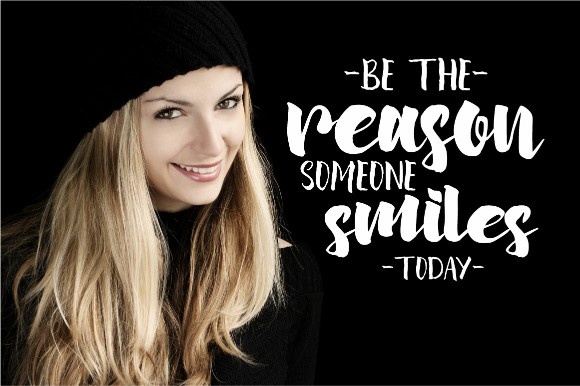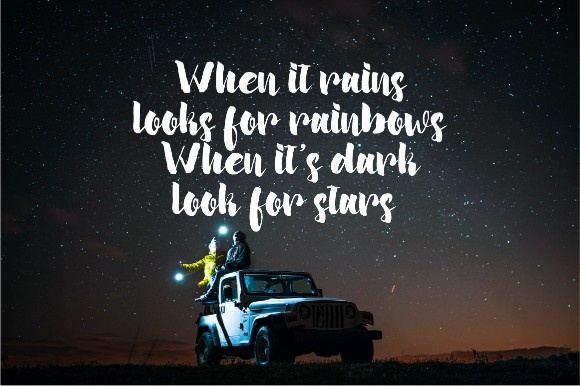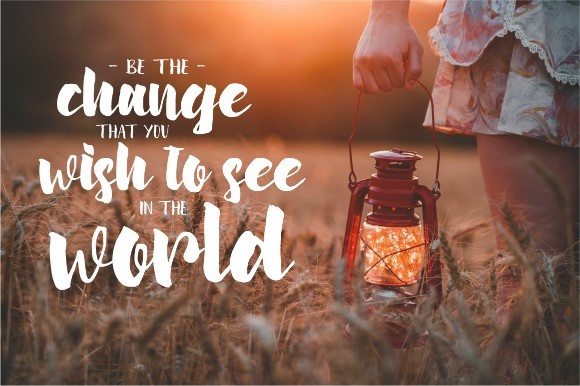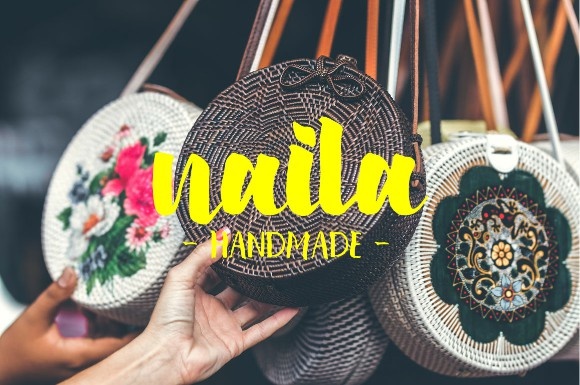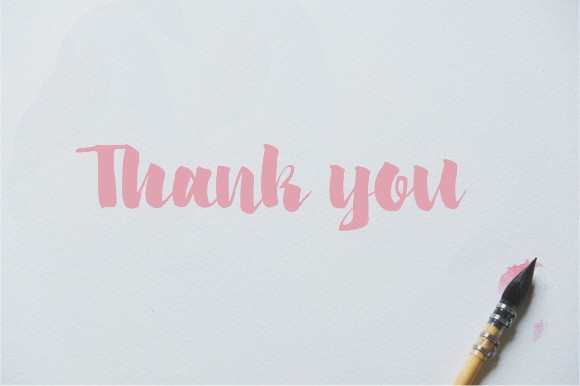
The Art of Handmade Typography
Have you ever found yourself scribbling away in a notebook, experimenting with different brush strokes and textures in search of the perfect handwritten look? For designers, capturing that unique, handmade feel can be a challenge, but it’s also what makes a design truly special. Whether you’re working on a branding project or creating a beautiful piece of art, the right font can make all the difference.
Enter the Arinda & Karina Duo Font, a stunning pair of fonts that perfectly capture the essence of handmade brush style. This beautiful duo is designed to evoke a sense of warmth and personality, making it the perfect addition to any design project. With its unique textures and subtle imperfections, the Arinda & Karina Duo Font is a valuable tool for designers looking to add a touch of handmade charm to their work.
Arinda & Karina Duo Font Key Features
- Font Family: A unique, hand-drawn font duo consisting of Arinda and Karina, each with its own distinct personality.
- Unique Characteristics: Arinda features a more elegant and refined design, while Karina has a playful and whimsical feel, making them suitable for various design projects.
Arinda & Karina Duo Font Review
I recently had the chance to work with the Arinda & Karina Duo Font, and I must say, it’s a unique and intriguing choice for designers. ✨ The first thing I noticed was the beautiful, handwritten feel of the font, which immediately caught my attention. The duo font style, which combines the elegant Arinda with the playful Karina, adds a touch of sophistication and whimsy to any design.
- ✨ Unique and versatile design that suits a wide range of applications
- ✨ Beautiful, high-quality glyphs that showcase excellent craftsmanship
- ✨ Easy to read and recognize, even at small font sizes
- ⚠️ Limited language support, which may be a concern for designers working on international projects
- ⚠️ Not ideal for use in body text or long blocks of text, as it can be difficult to read
- ⚠️ May not be suitable for use in highly formal or professional contexts
Overall, I think the Arinda & Karina Duo Font is a great choice for designers looking to add some personality and flair to their work. With its beautiful design and versatility, it’s a great addition to any font collection.
For the most striking results, use the Arinda & Karina Duo Font for headings and titles.
Combine it with a clean sans-serif font for body text.
Use it for wedding invitations, branding materials, or any design project that requires a unique, elegant touch.